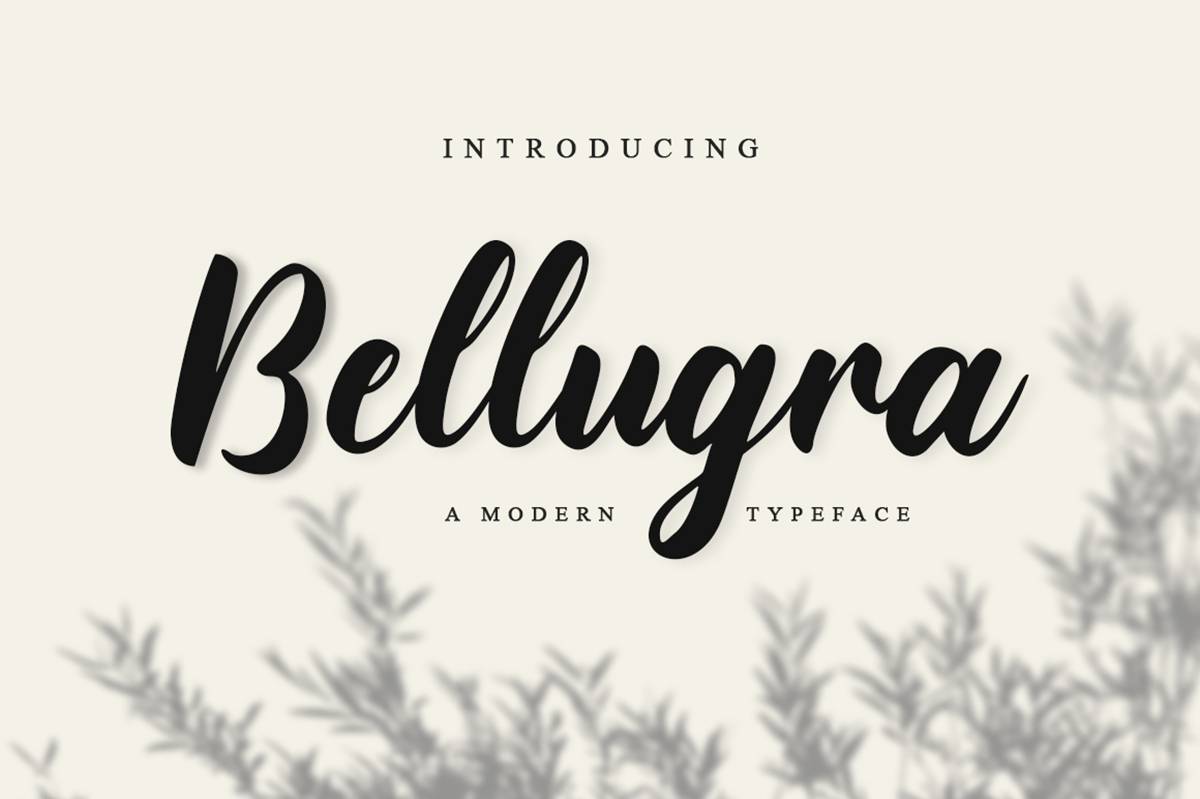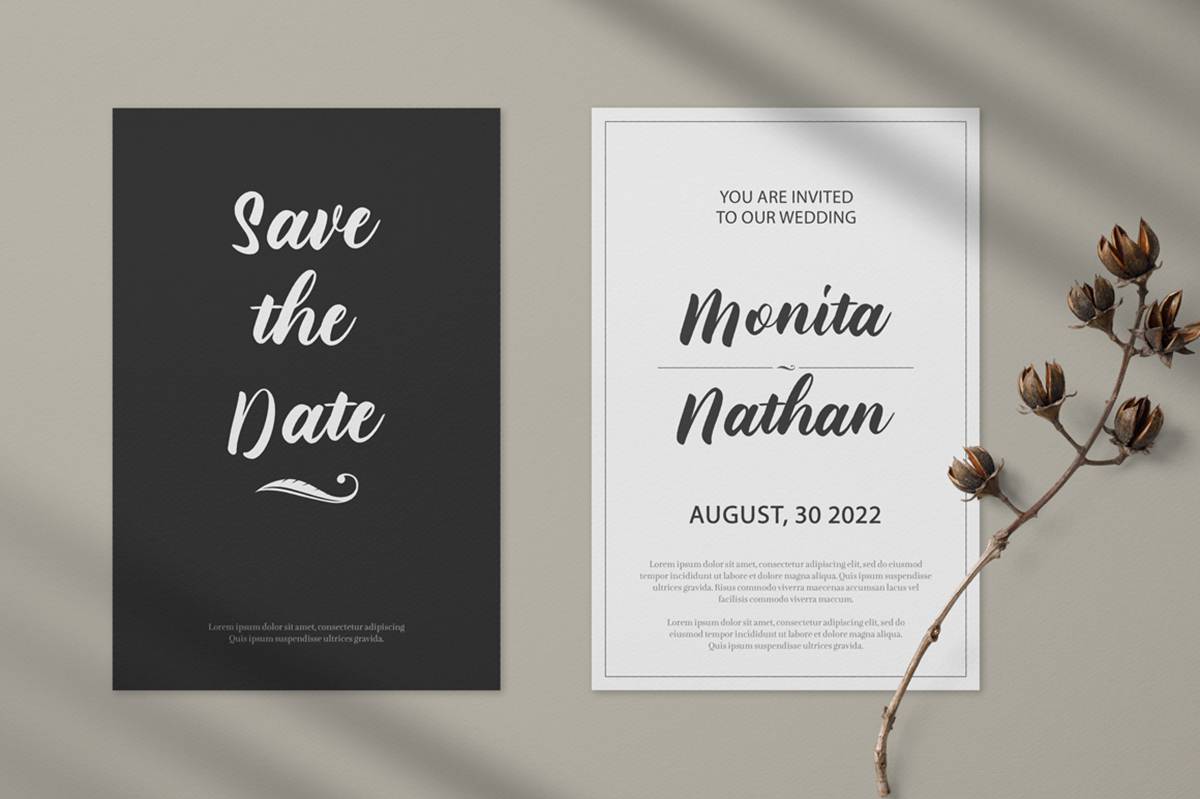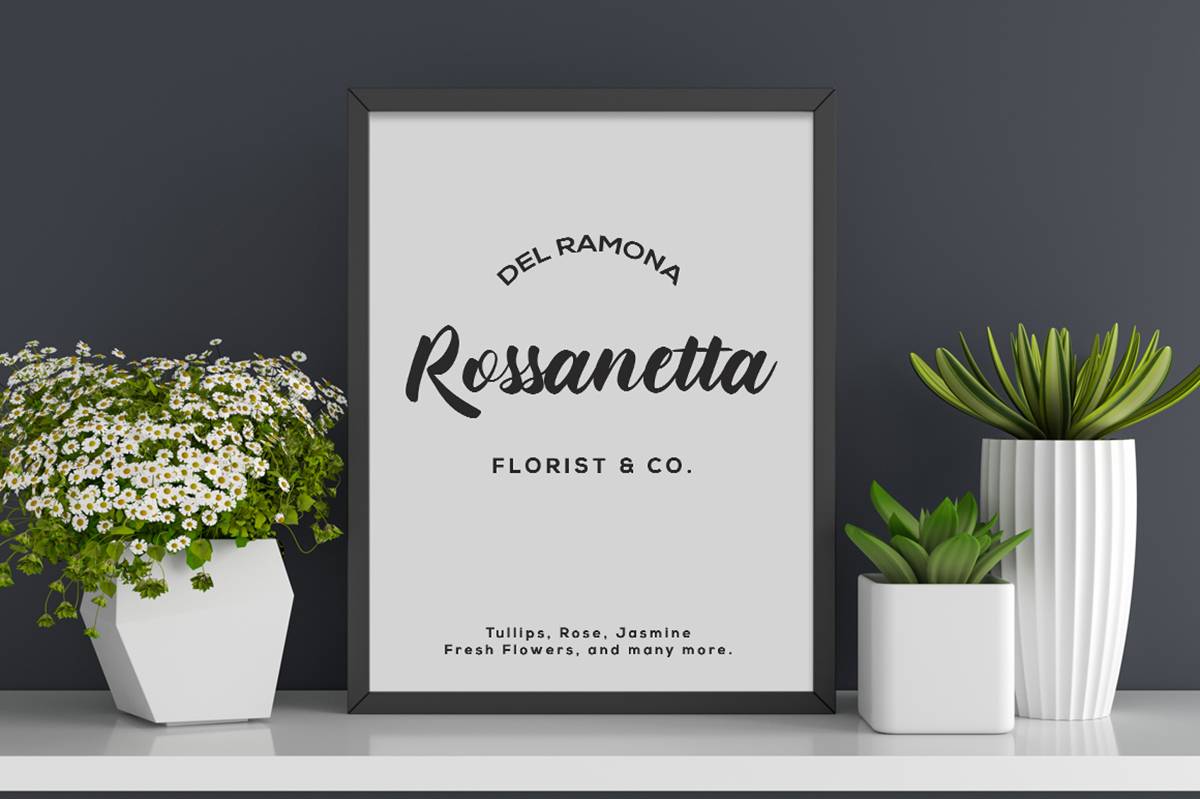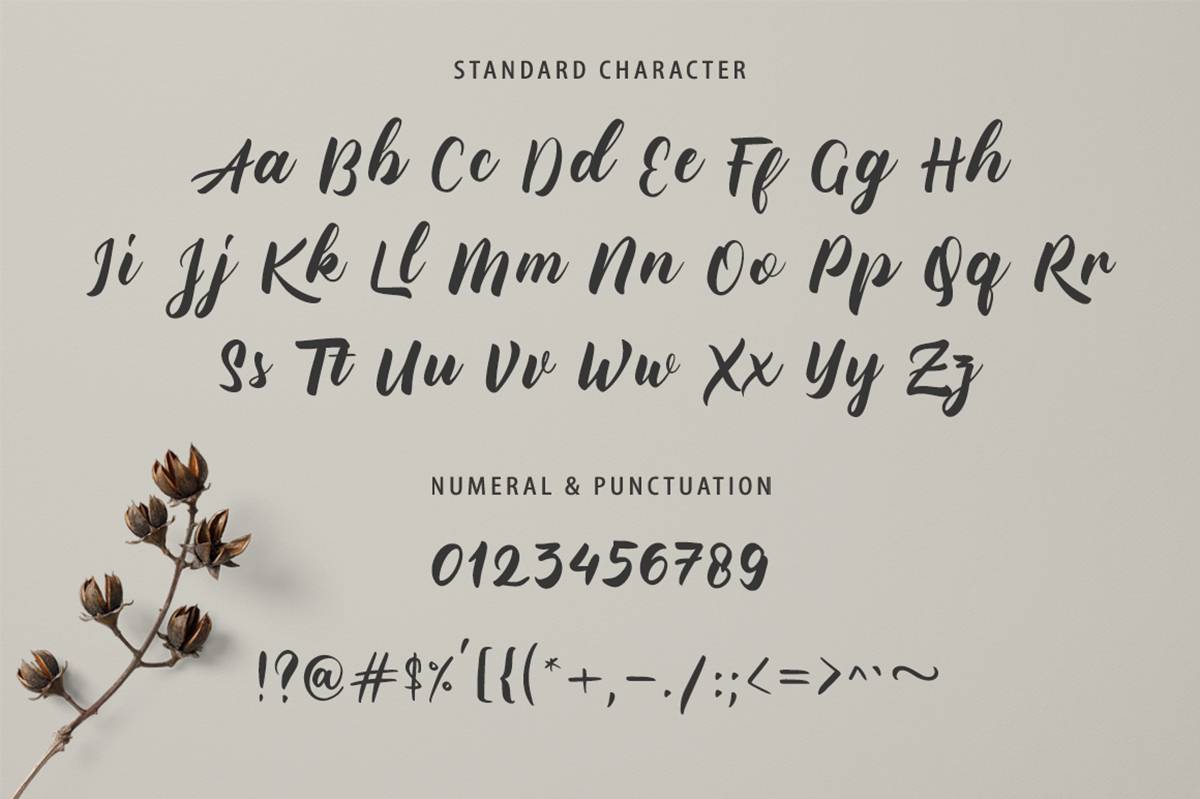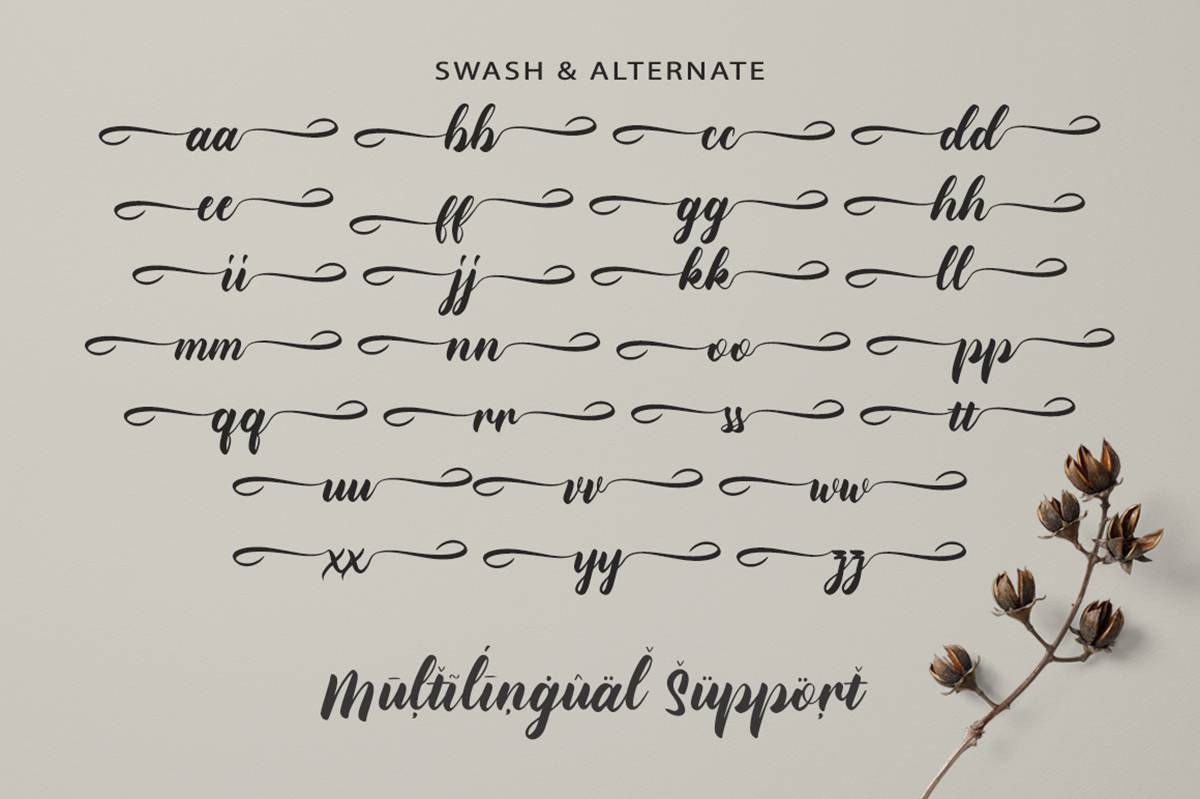
Bellugra Script is a lively and expressive handwritten font featuring smooth, flowing strokes with medium contrast that give it a warm, personal feel. Its casual yet elegant style makes it an excellent choice for branding, invitations, and creative projects that want to convey friendliness and approachability with a touch of sophistication. This font shines in logos, packaging, and headlines where a stylish, handcrafted aesthetic is desired.
Bellugra Script Font
About Bellugra Script Font